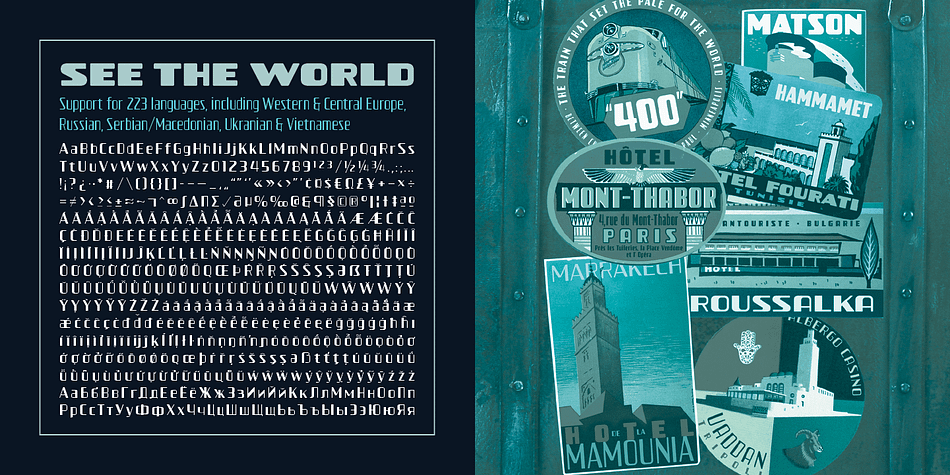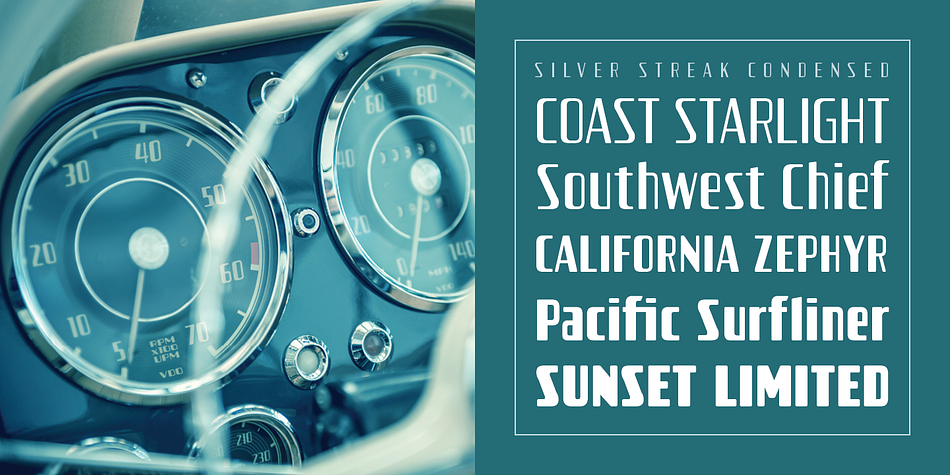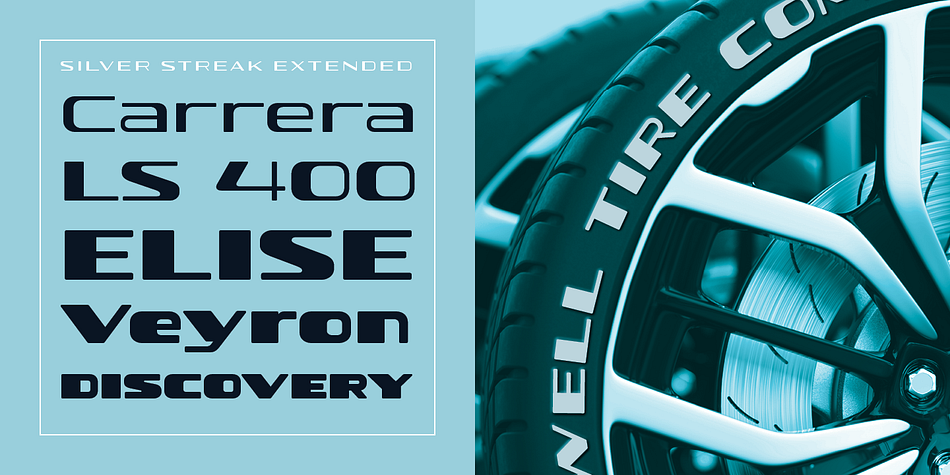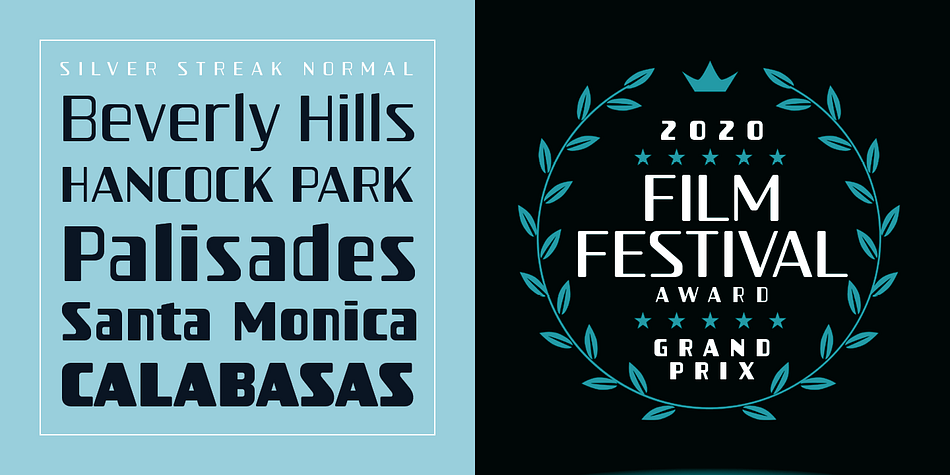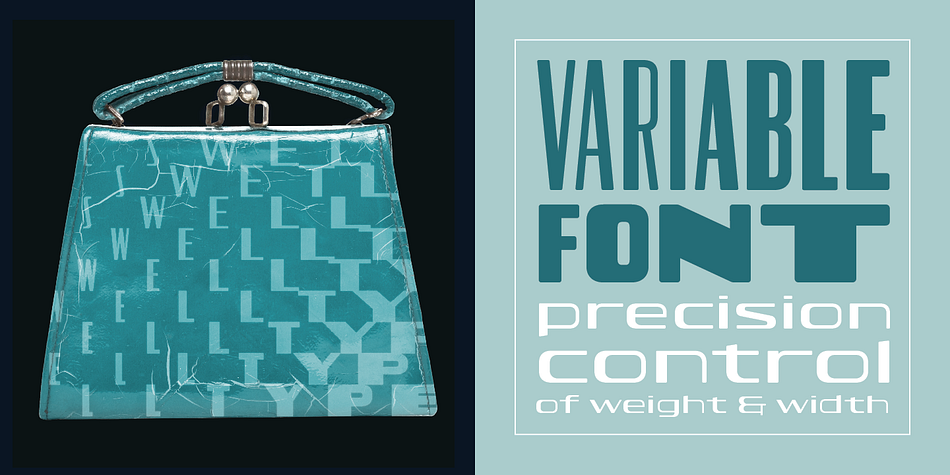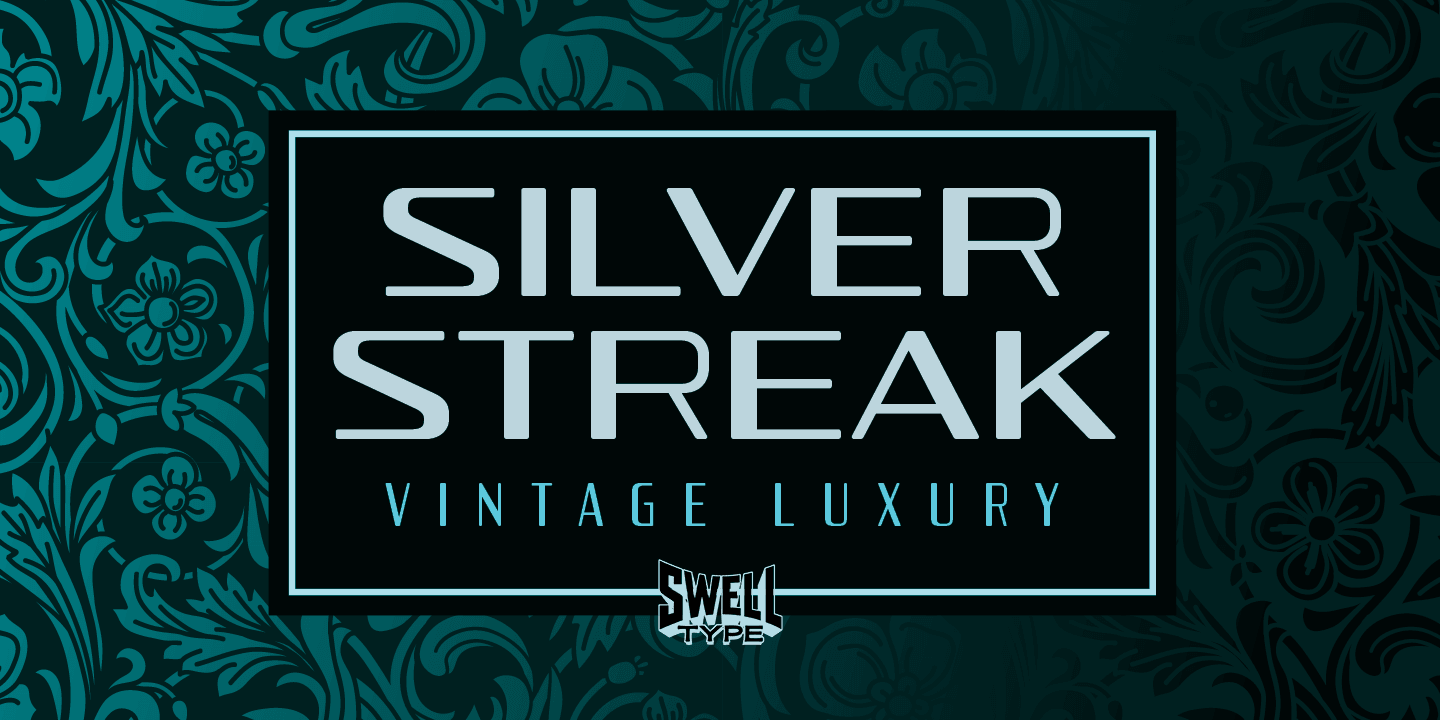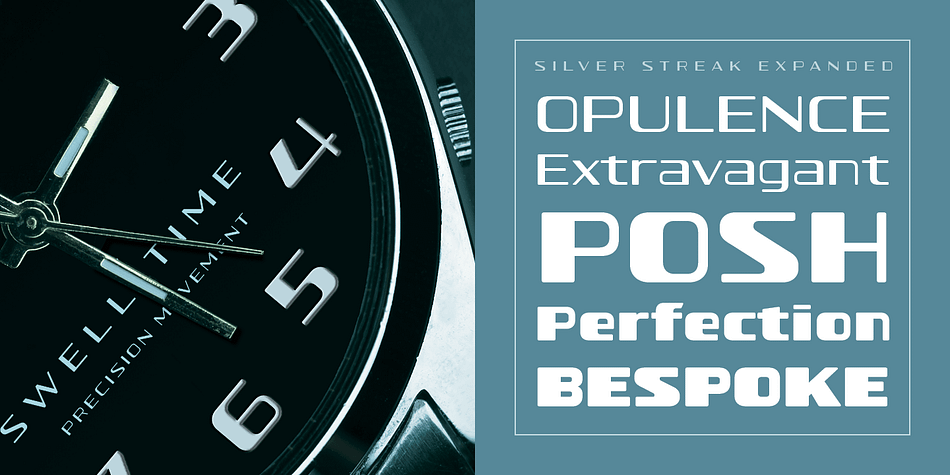
Designed by John Roshell, Silver Streak is a display sans font family. This typeface has twenty-six styles and was published by Swell Type.
Inspired by the streamlined lettering of trains, cars and advertisements from the 1930s and 1940s, Silver Streak is a font family that combines Art Deco elegance with refined craftsmanship and modern features.
Silver Streak’s contrasting strokes and tastefully rounded corners conjure an era of refined, vintage elegance. An extravagant palette of 25 weights — from gracefully tall and thin to commandingly wide and heavy, along with a variable font for unlimited options between — provide unforgettable branding possibilities for luxury items ranging from jewelry, clothing and perfume to the sleek badges of high-performance sports cars.
• Five widths from Compressed to Extended
• Each with five weights from Light to Heavy
• Complete family includes a Variable font for precise control of weight and width
• Support for 223 languages, including Western & Central Europe, Russian Cyrillic, Serbian/Macedonian, Ukranian and Vietnamese
• Alternate hook-cornered capitals (accessible as Opentype Discretionary Ligatures)
• Alternate round-topped A in two versions, each with international accents (accessible as Stylistic Alternates)